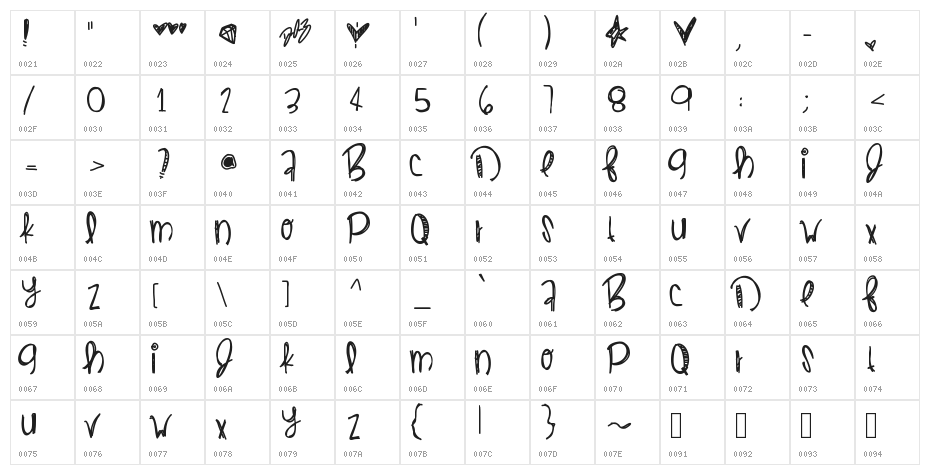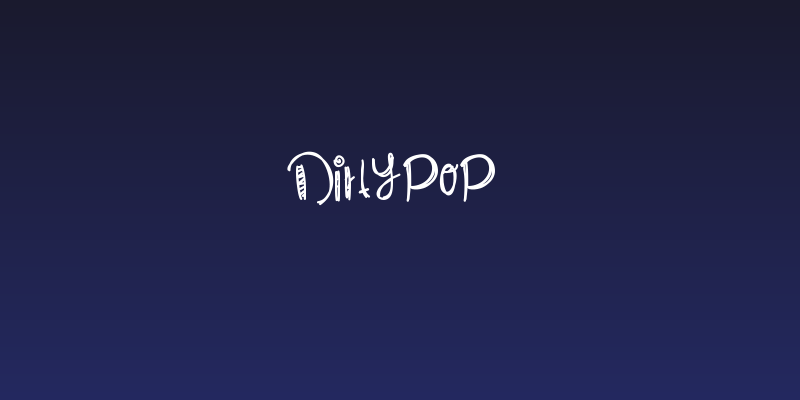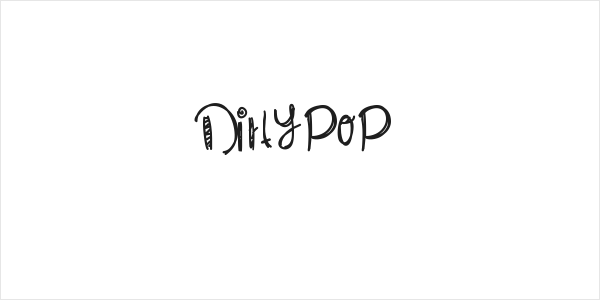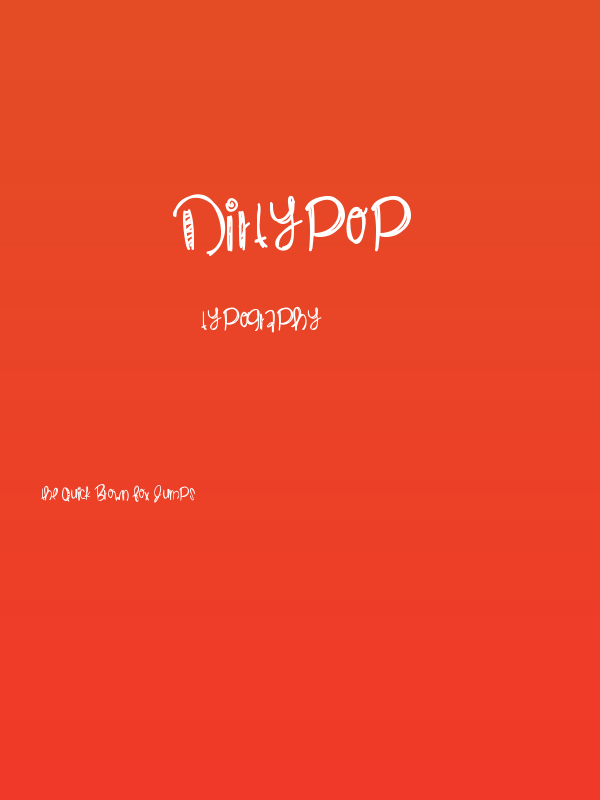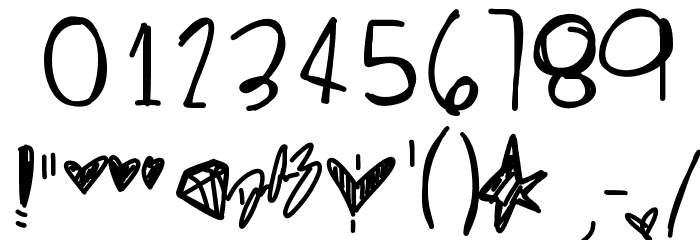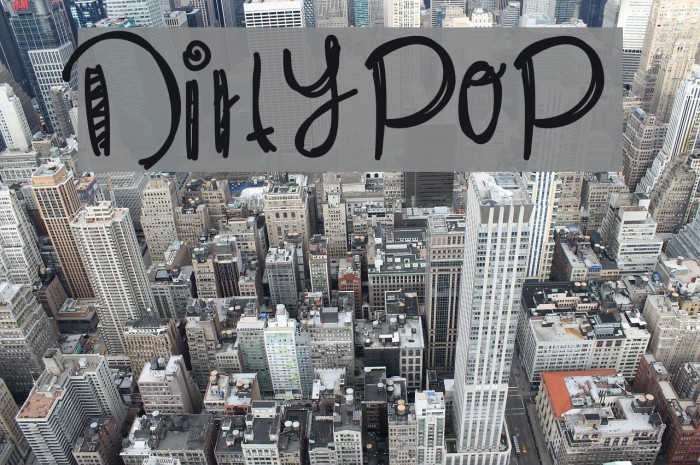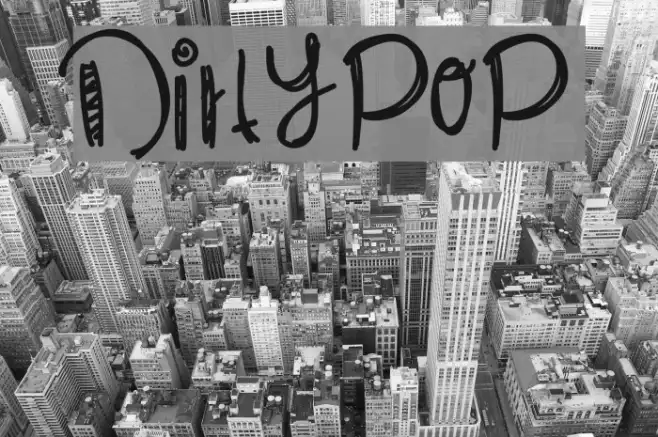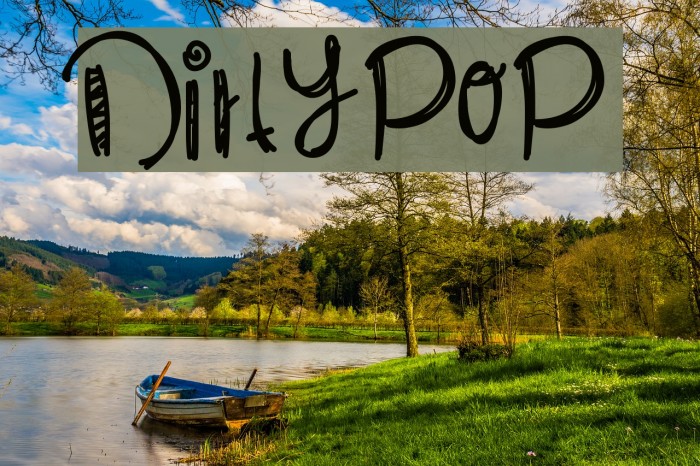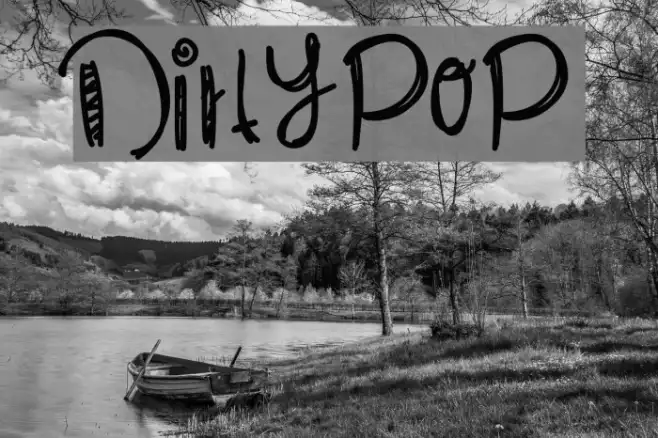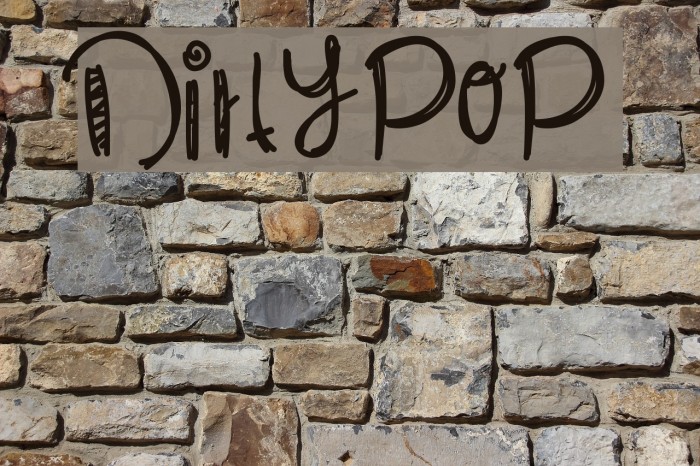
DirtyPop Font
DirtyPop Description
This font exhibits a playful and energetic handwritten style, characterized by its bold and expressive strokes. The letters are crafted with a casual flair, featuring irregular shapes and varying line thicknesses that add a dynamic and lively feel. The uppercase and lowercase letters maintain a consistent aesthetic, with a slightly exaggerated, whimsical appearance. Numbers and special characters follow the same playful design, making them stand out with their unique forms. The overall look is informal and artistic, ideal for projects that require a touch of creativity and fun.
| Proposed Projects | Ideal for children's book covers, playful branding, greeting cards, and creative social media graphics. |